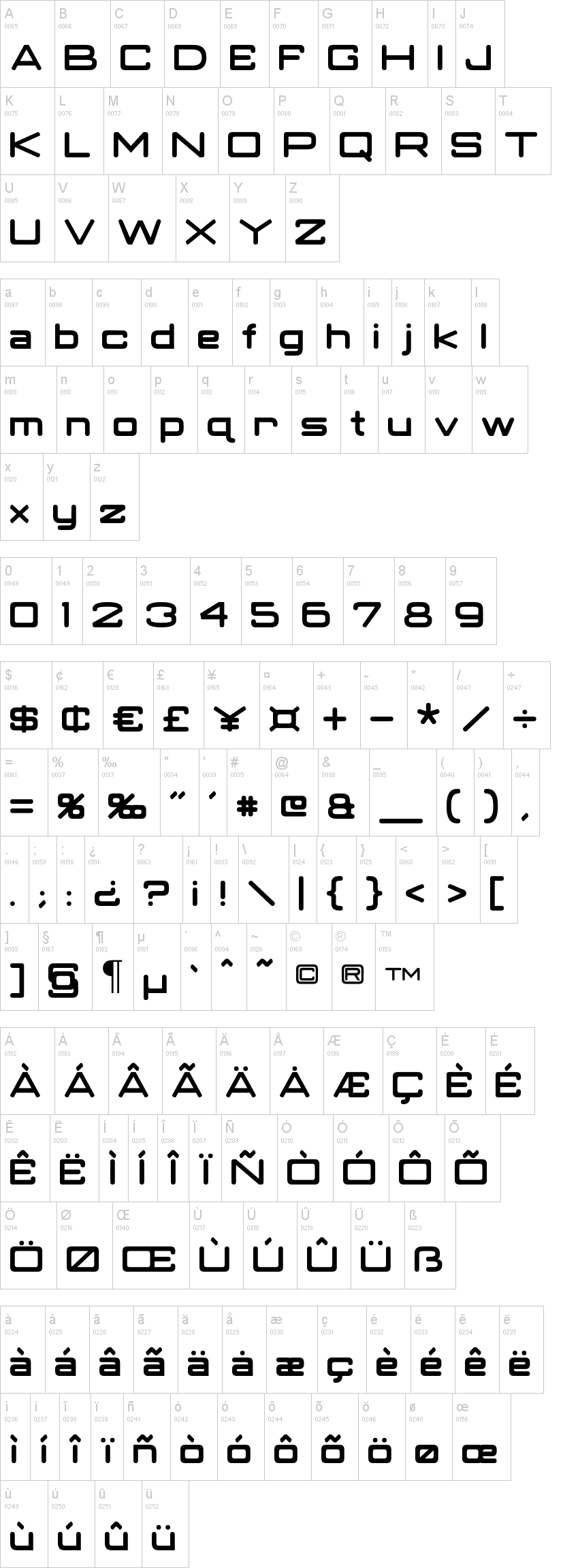
Famous Robot Font Download Ideas
At The Same Time, The.
The font family has huge language support. This robot font with a unique style can be used for modern designs and movie posters, games, banners, and. However, you need to contact the author for commercial use or.
It Has A Mechanical Skeleton And The Forms Are Largely Geometric.